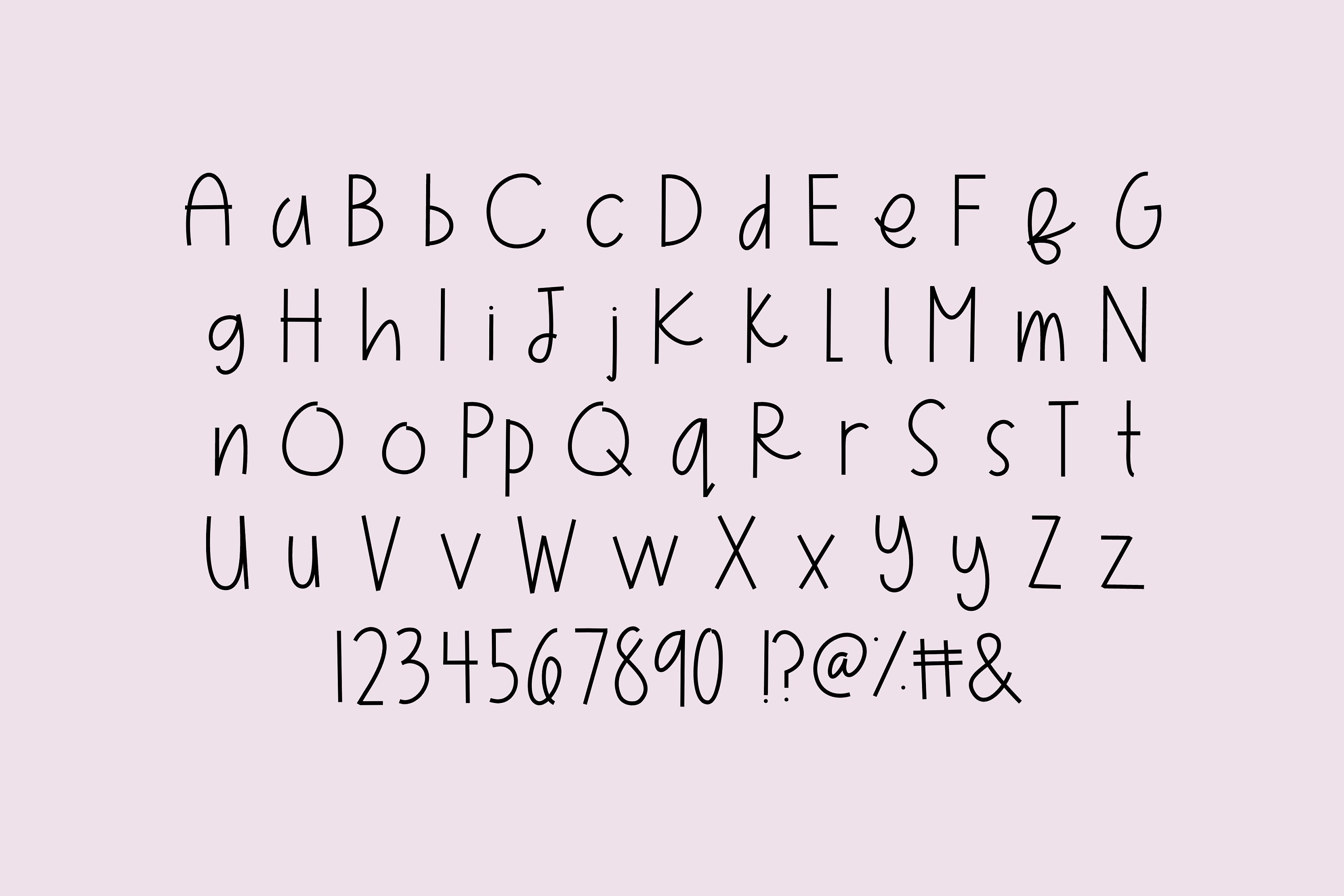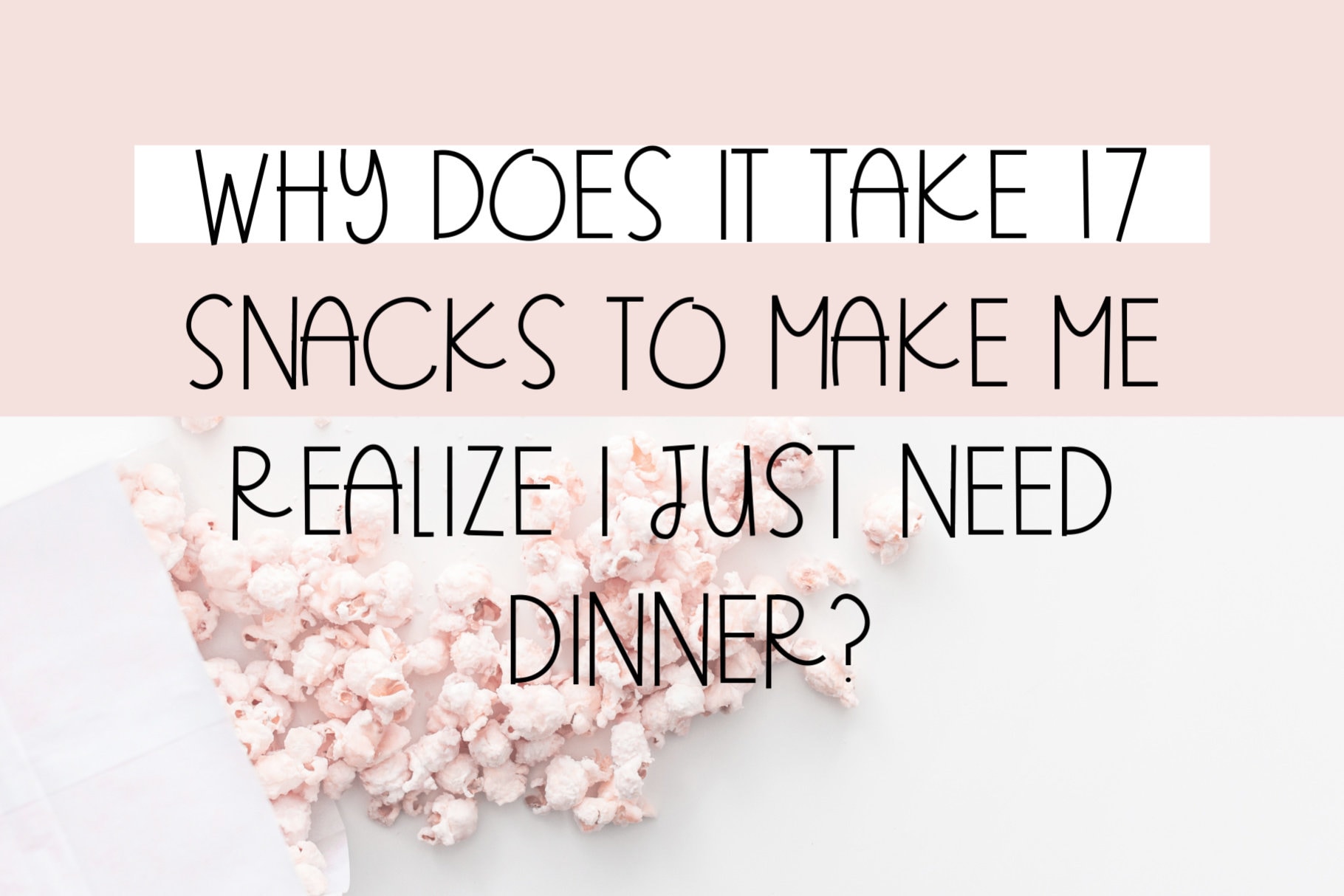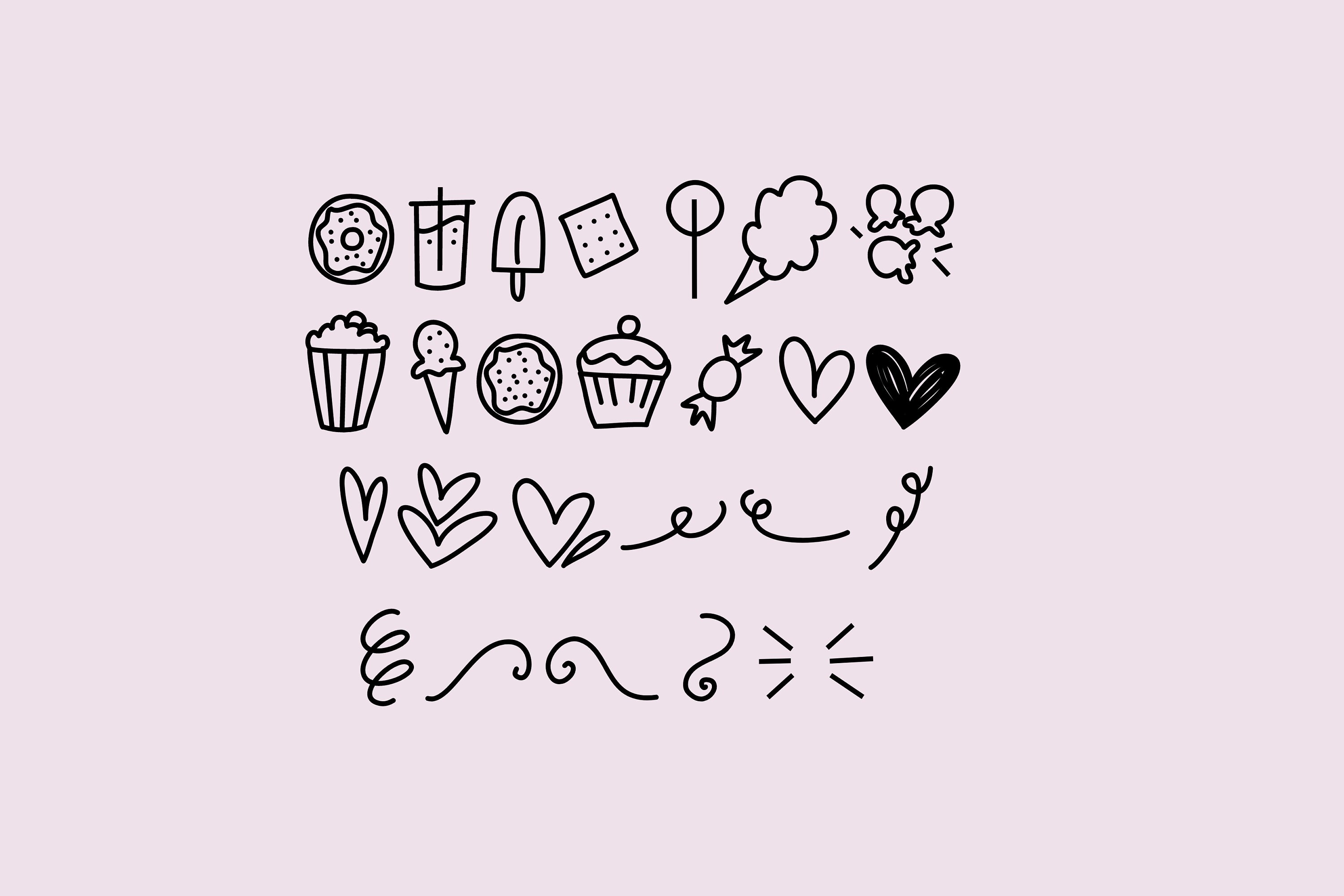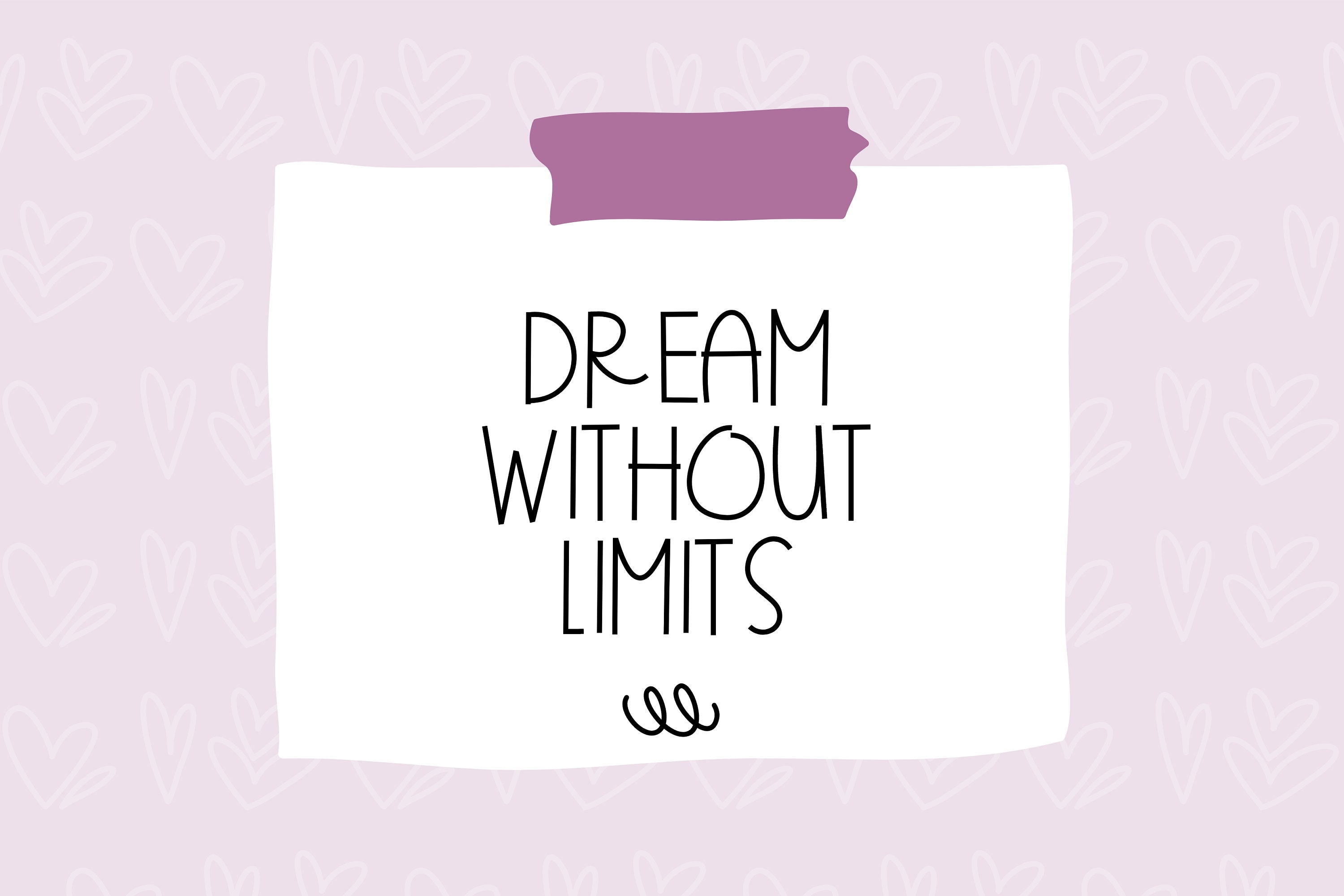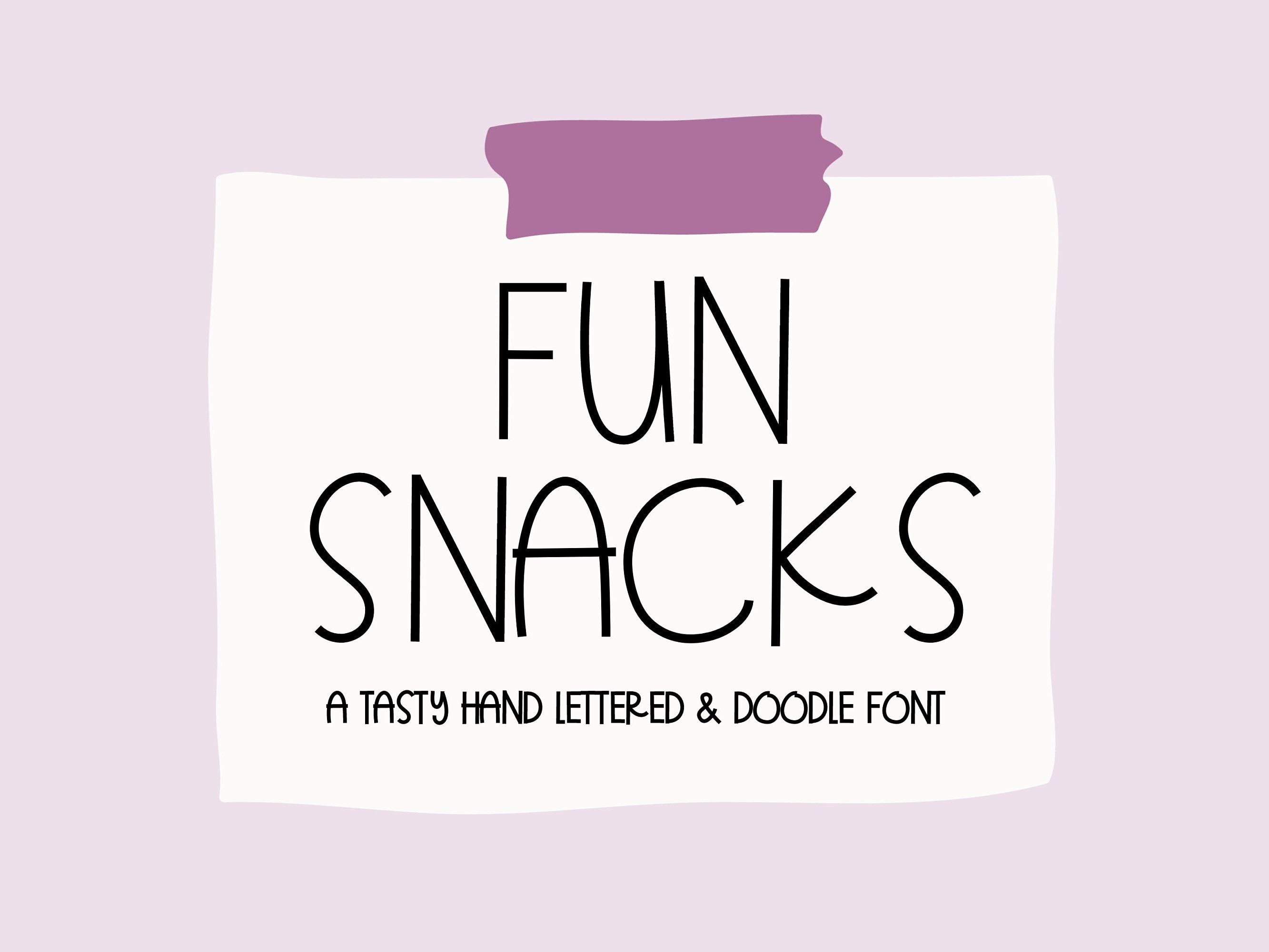
You will get this Fun Snacks font and dingbat extras. Cute and Quirky, perfect for graphic tees and invites.
Create your next project with this adorable font duo and digital paint elements.
Fun Snacks Font
Fun Snacks Extras